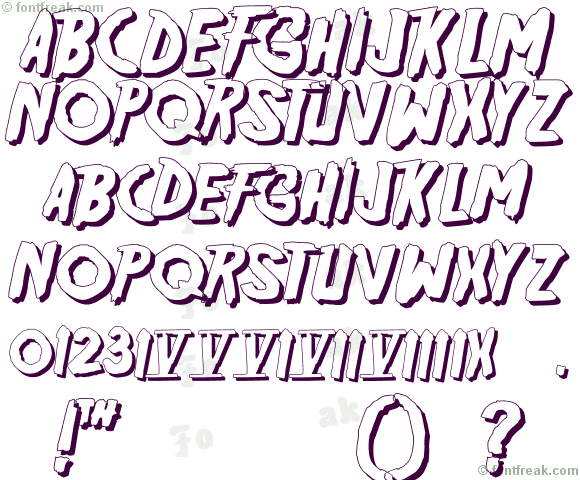
Friday13SH
Friday 13 Shadow, designed by Norfok Inc., is a captivating display font that brings a unique charm to any project. This freeware font, created in 1999 by Thomas W. Otto, features a striking shadow effect that adds depth and visual interest to each character. The font is characterized by its bold stroke weight, which ensures strong legibility, while the shadowing enhances its presence, making it an excellent choice for eye-catching designs. The letterforms exhibit a playful and slightly whimsical aesthetic, with a slight contrast that draws attention without overwhelming the viewer. The spacing is well-balanced, allowing for smooth readability, whether used in large headings or smaller text.
The Friday 13 Shadow font is particularly well-suited for various creative applications. It shines in movie posters, where its dramatic flair can evoke suspense or excitement. Additionally, it can enhance the design of Halloween-themed invitations, giving a festive yet eerie touch. Graphic designers will appreciate its potential for branding projects, especially for businesses looking to make a memorable impression. Restaurant menus can also benefit from this font, as it adds an engaging visual element that can enhance the dining experience. Content creators seeking to add personality to their digital graphics will find this font versatile and appealing.